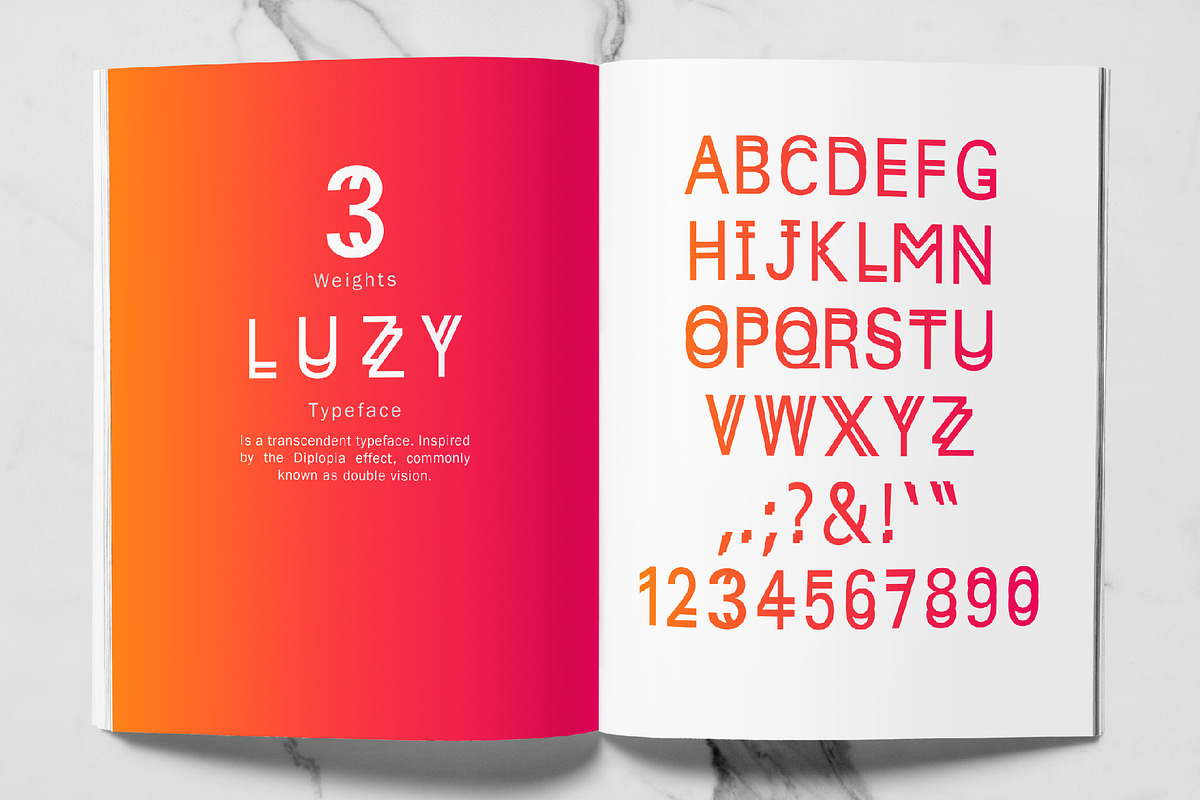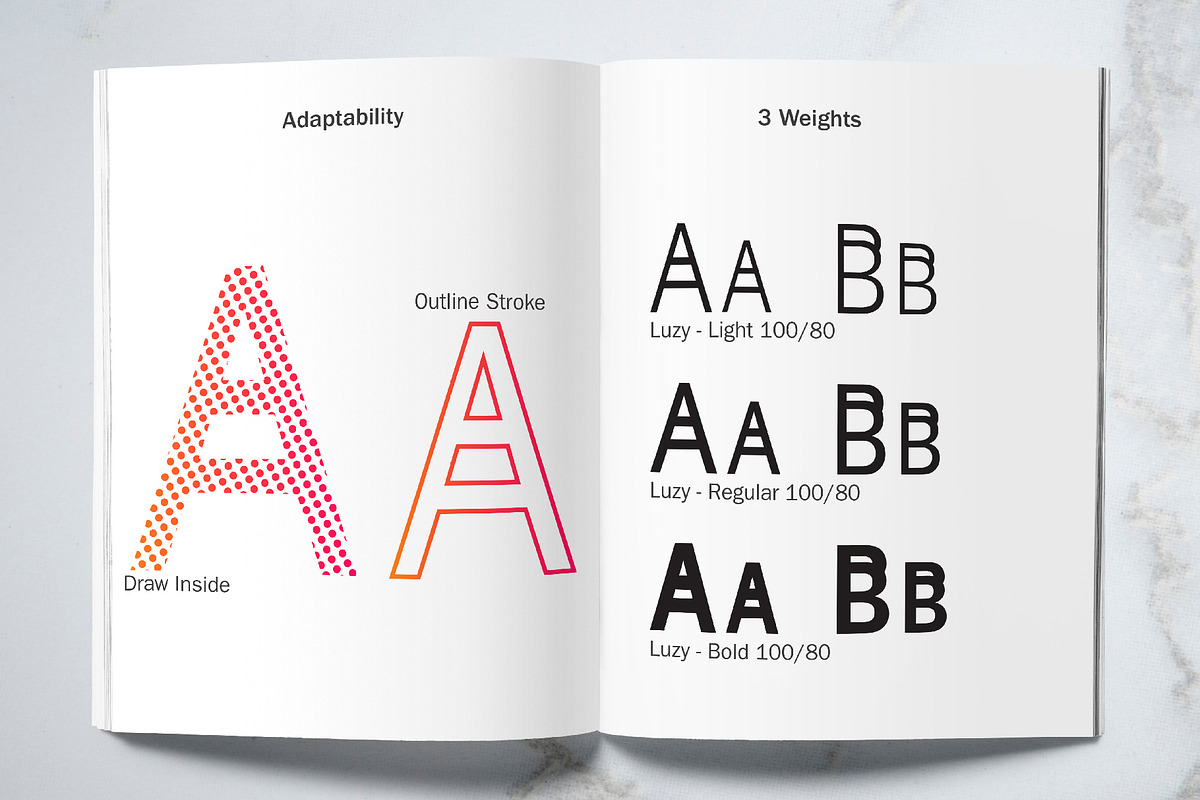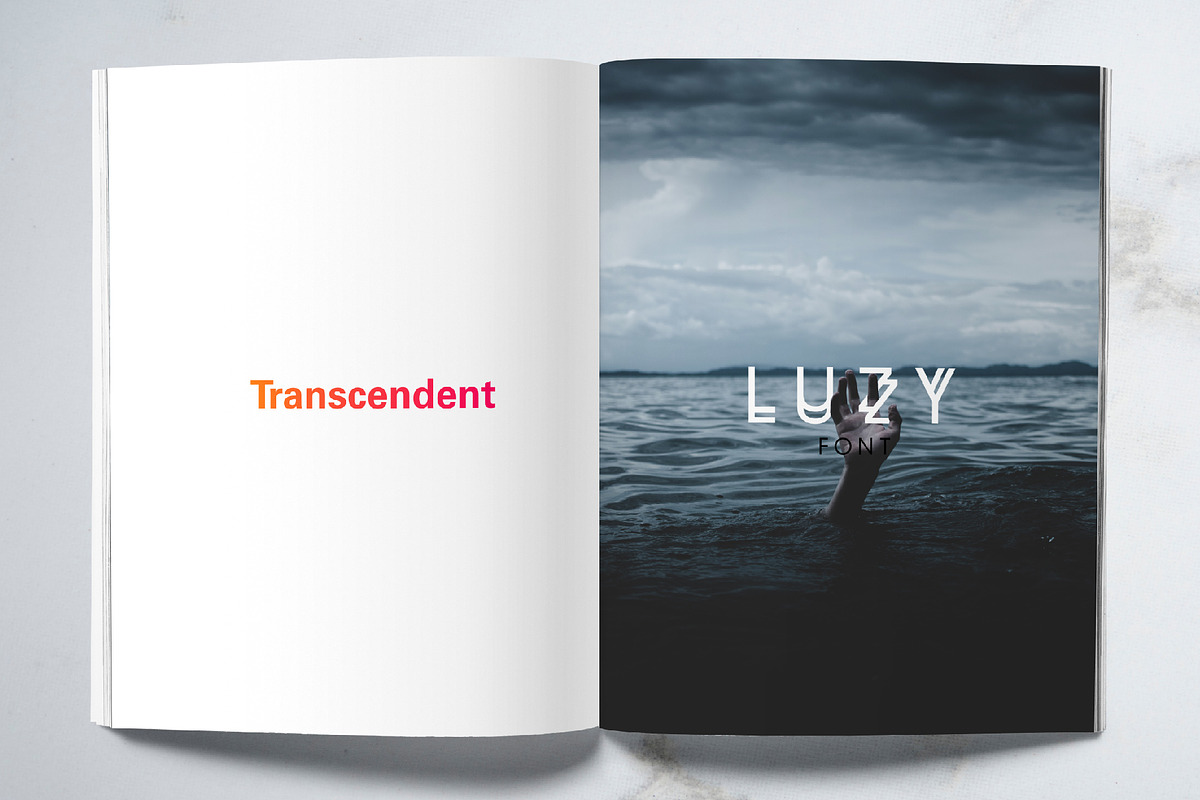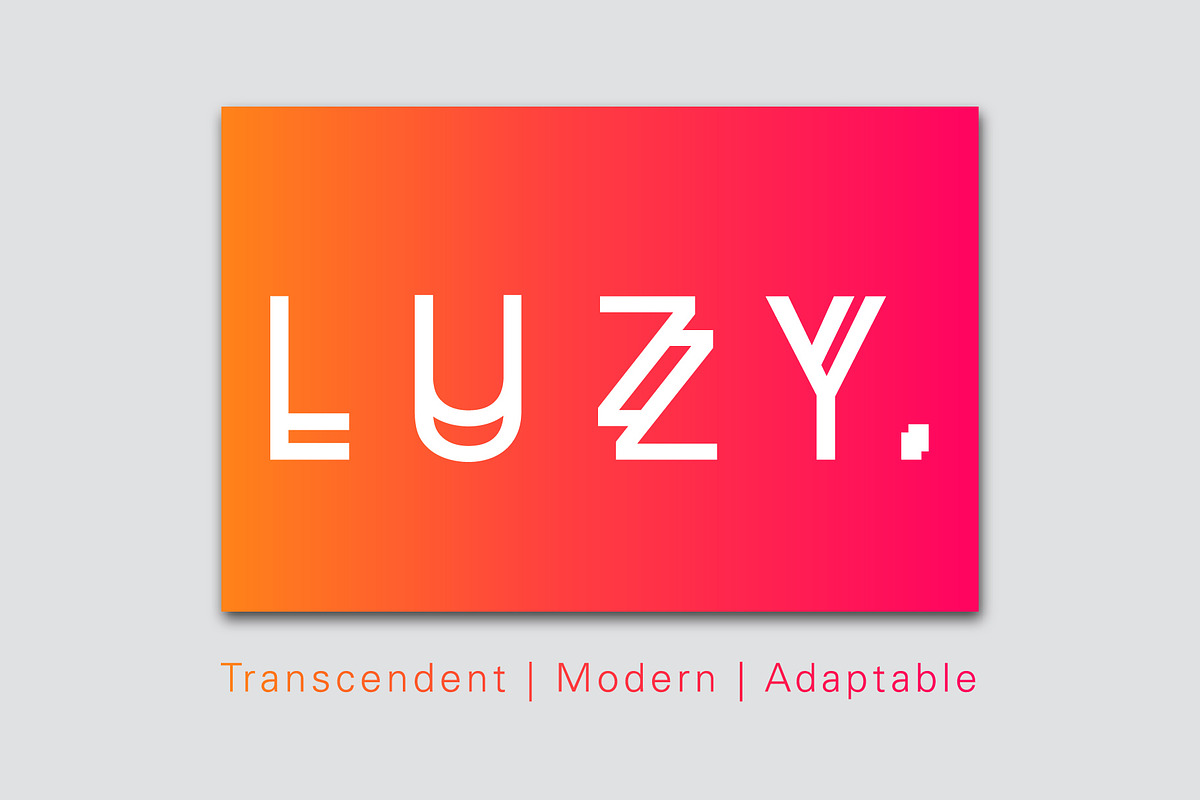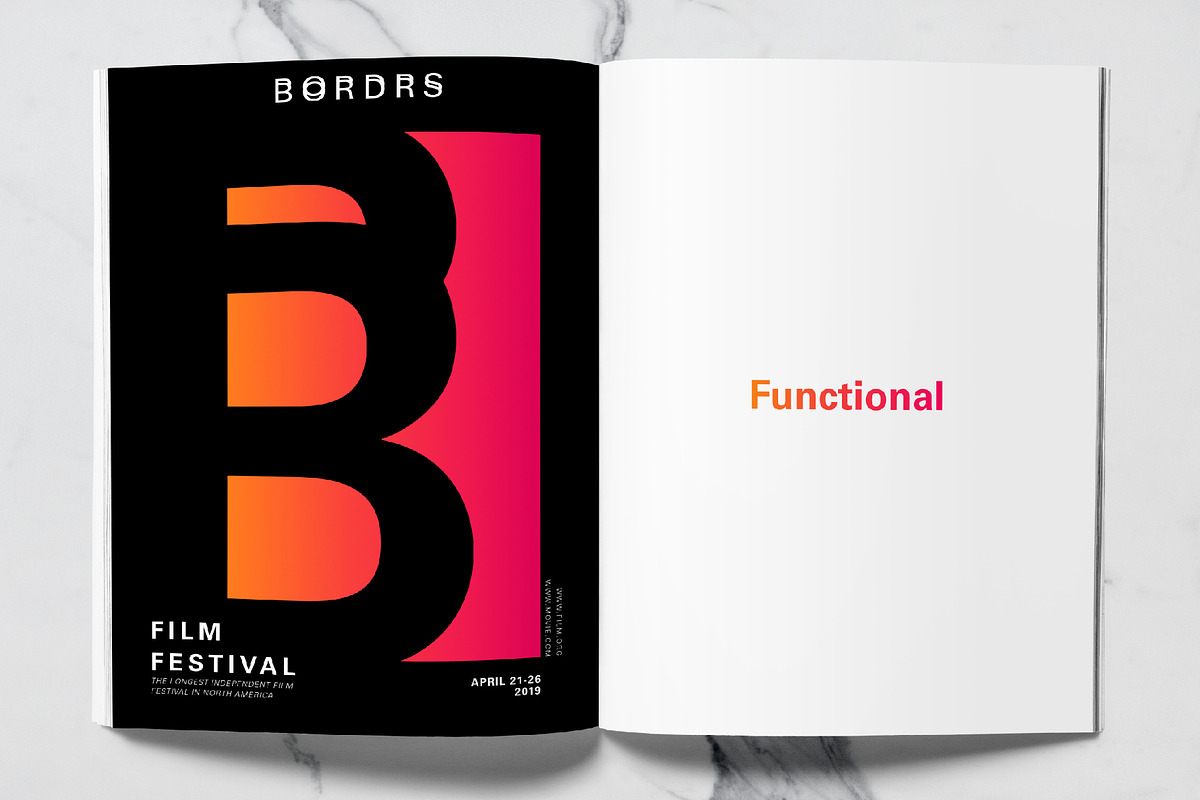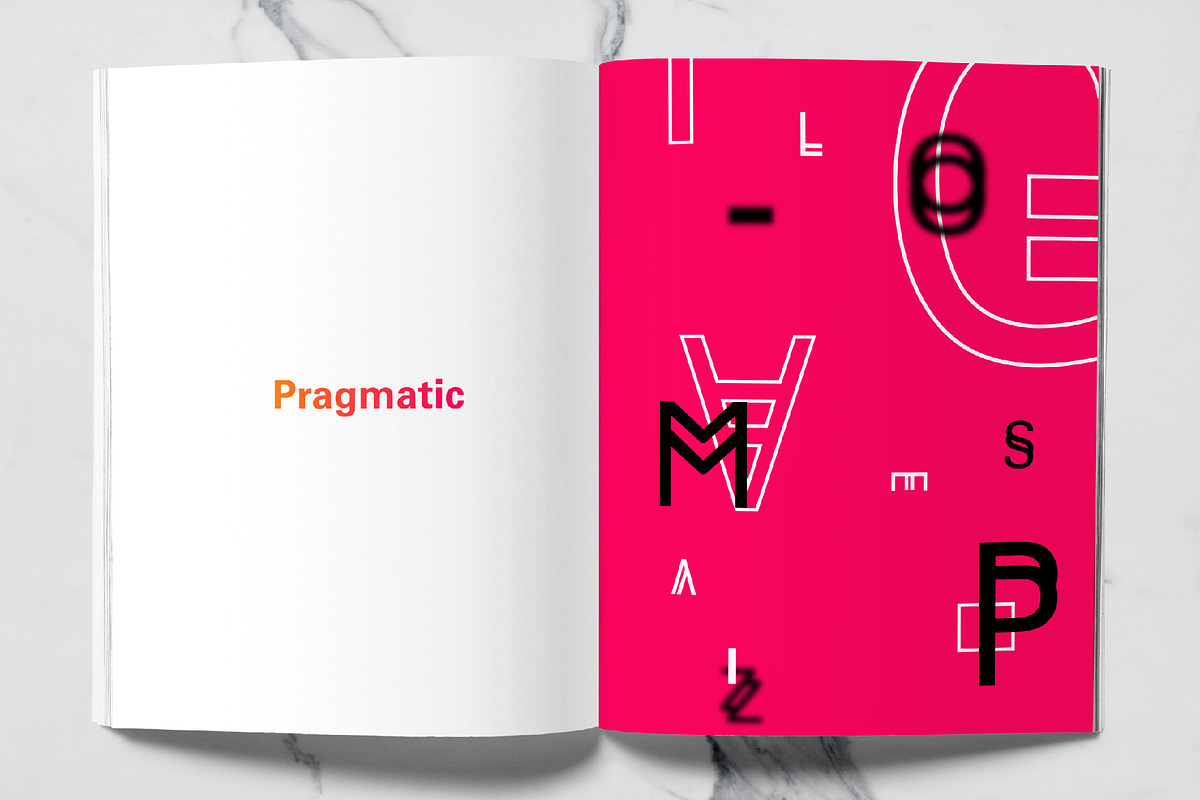
Luzy | 3 Weight Transcendent Font
LUZY is a transcendent typeface. Inspired by the Diplopia effect, commonly known as double vision, which Is the simultaneous perception of two images of a single object that may be displaced horizontally, vertically, diagonally, or rotationally in relation to each other. Luzy font recreates this illusion to bring a surrealistic, abstract effect to your headlines, titles or logos.
3 Weights ( Light, Regular & Bold)
- Luzy Light
- Luzy Regular
- Luzy Bold